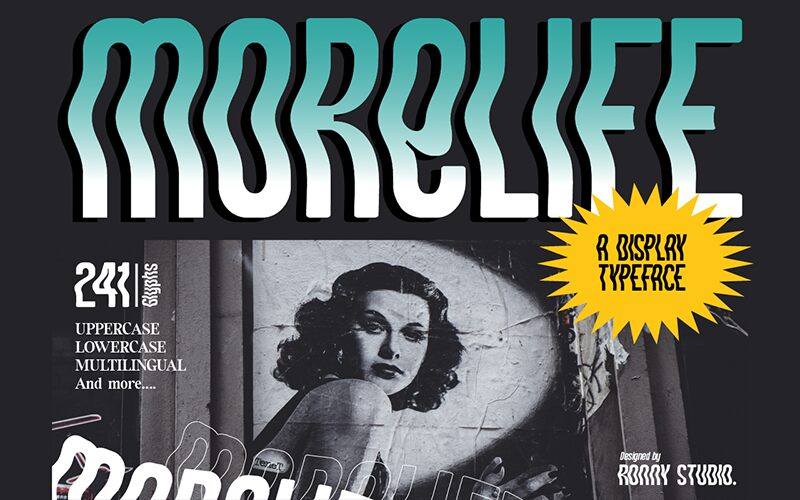
Morelife
Morelife, designed by Ronny Studio, is a captivating display font that injects a touch of distortion into your designs.
Its condensed width adds a unique intensity to any project, making it perfect for attention-grabbing headlines and eye-catching logos. With its bold and edgy style, Morelife is ideal for music album covers, streetwear brands looking to make a statement, or even experimental art projects seeking to push boundaries.
Let Morelife unleash your creativity and bring an exciting twist to your design endeavors.